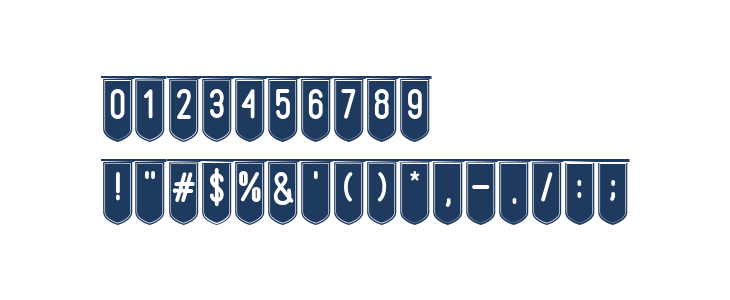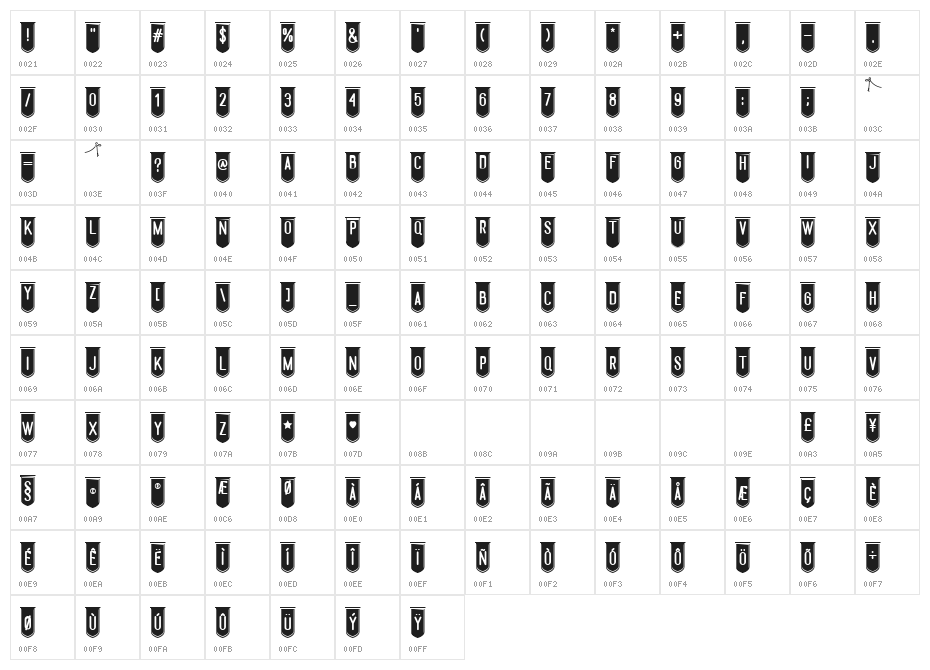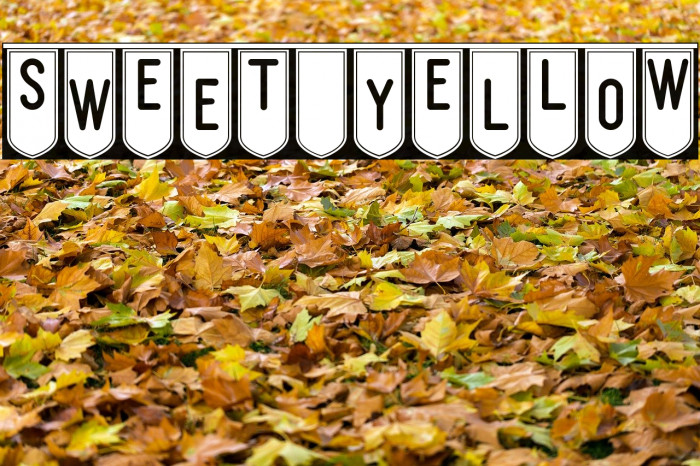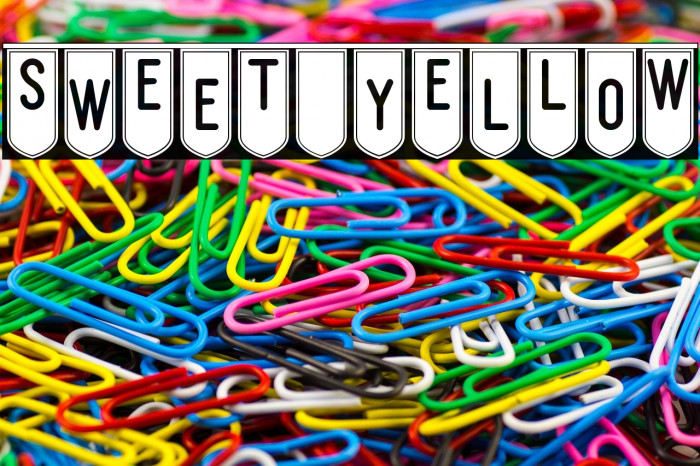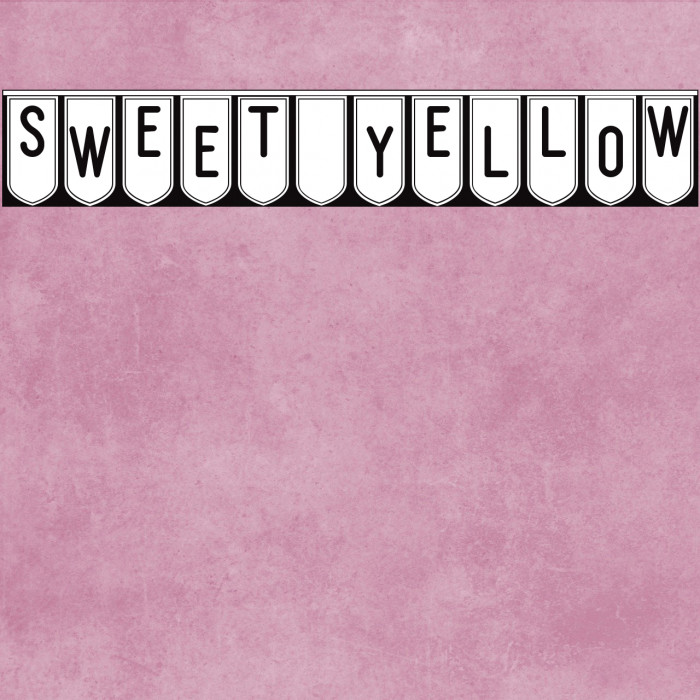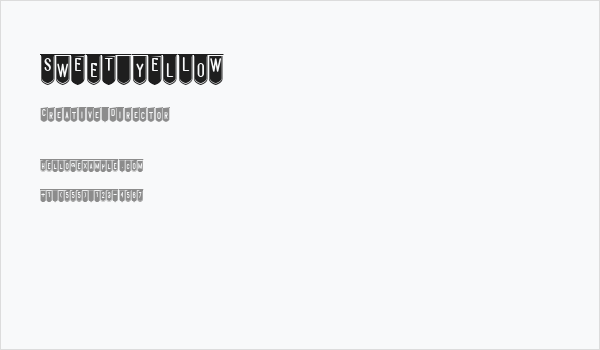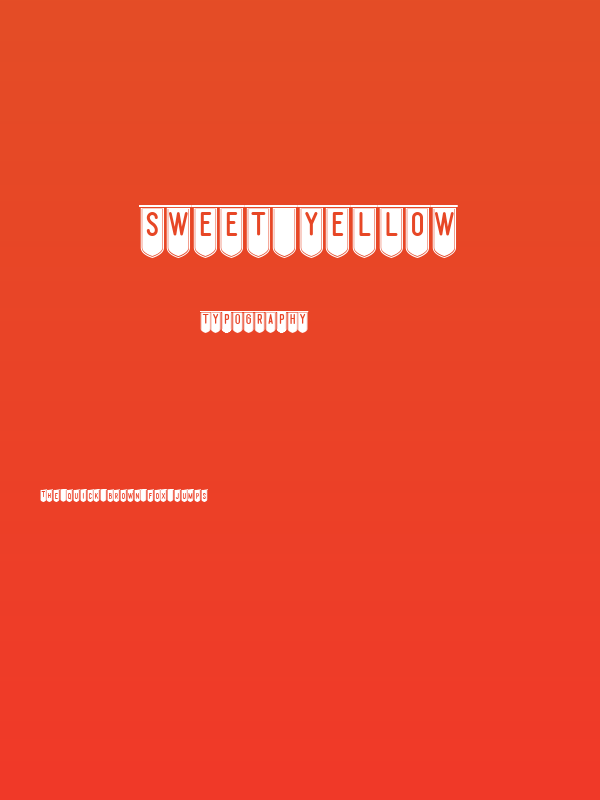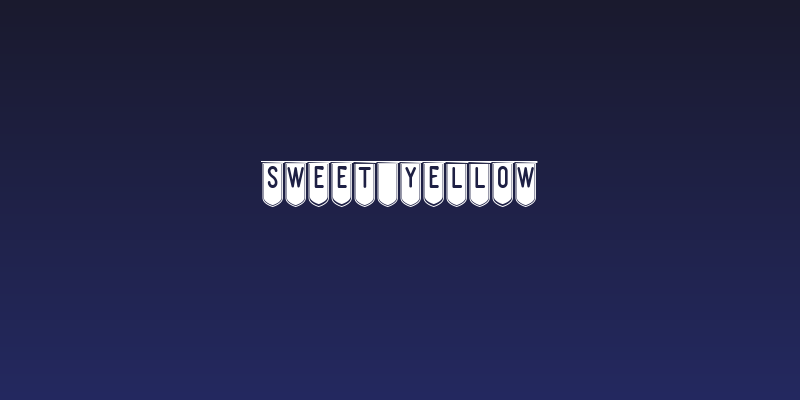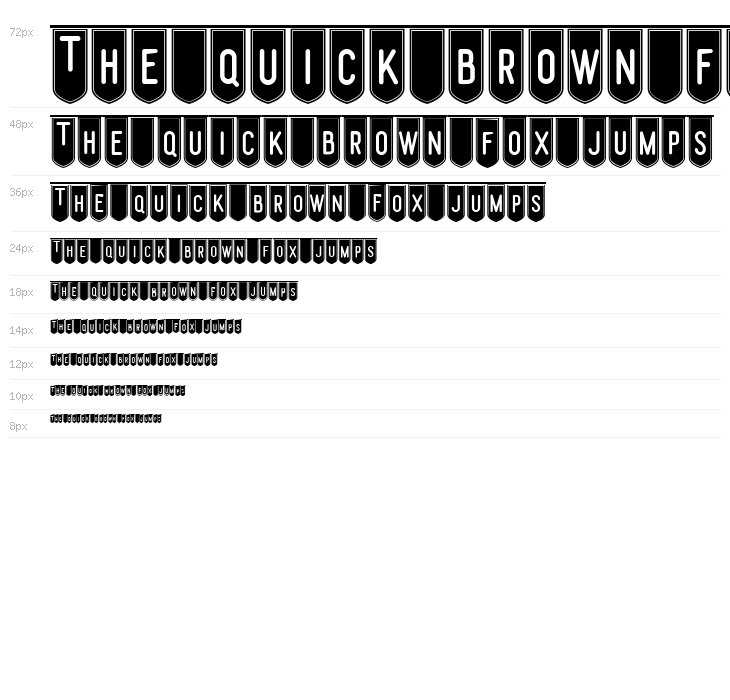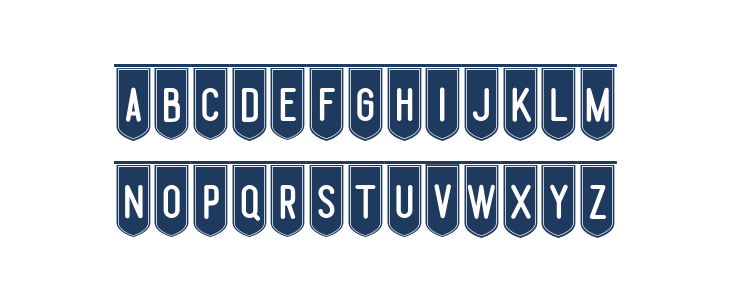
SwEeT yElLoW Font
SwEeT yElLoW Description
This font features bold, uppercase letters with a modern and clean design. Each character is enclosed within a shield-like shape, giving it a distinctive and decorative appearance. The letters are evenly spaced and have a consistent stroke width, contributing to a uniform and structured look. The numbers and special characters follow the same design principles, ensuring a cohesive style throughout. The font's boldness and unique presentation make it suitable for eye-catching displays and headings.
| Proposed Projects | Ideal for banners, posters, signage, and branding materials that require a bold and distinctive look. |